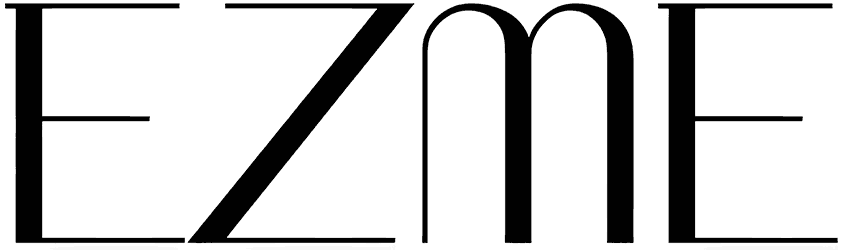
Ezme Font
Clean, contemporary, and exquisite, this fancy font in front of you can become your personal favorite in no time. It’s packed with quite delicate characters, but it’ll surprise you with its strong impression as a logo font.
The lowercase letters are not available, but the Ezme font functions perfectly even without them. Its sans serif elements set the mood for engaging the audience as you use it for a legal company logo, a luxury apparel label, fashion website banners, and more.